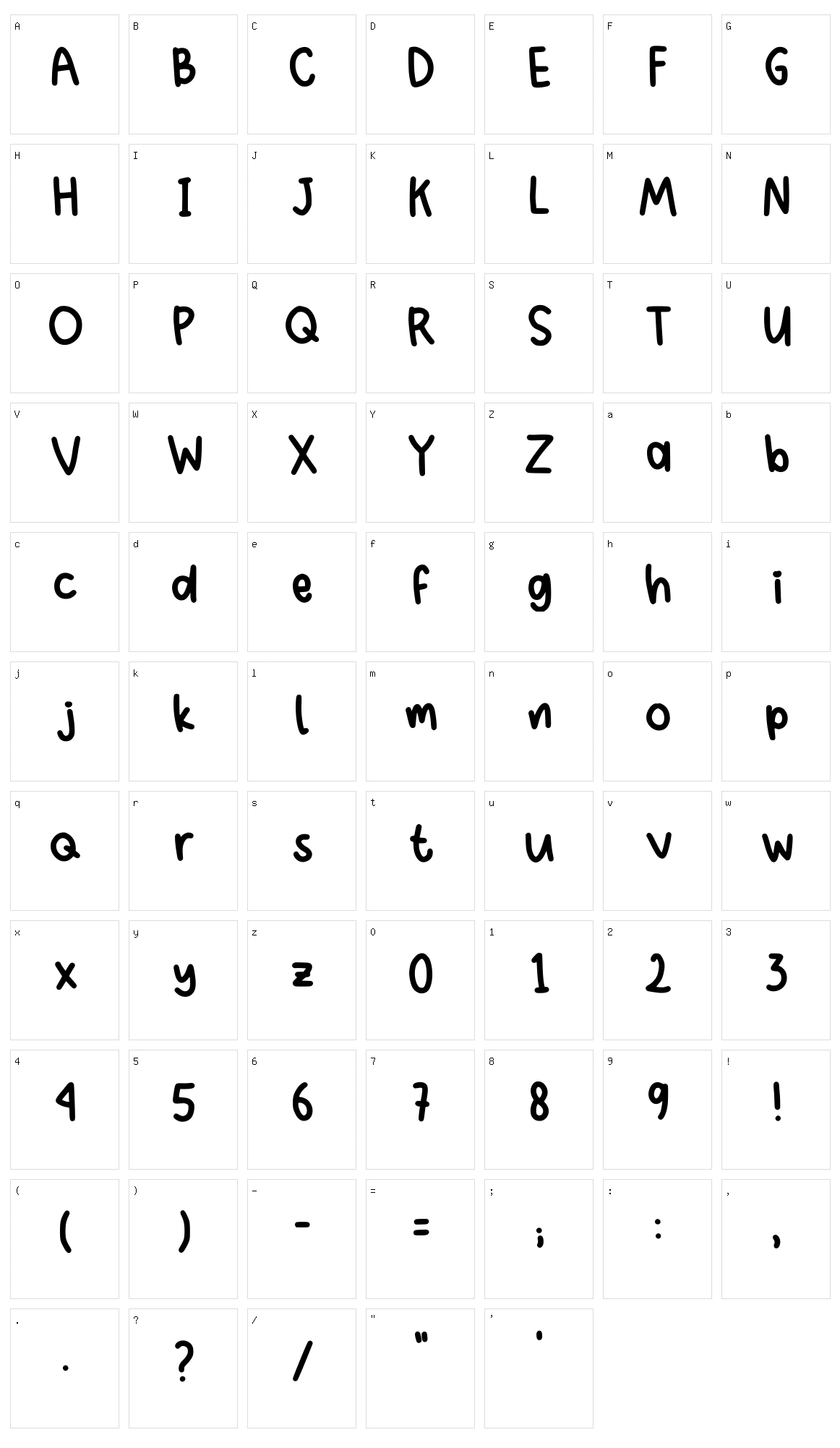
The free font Puzzle Piece is carefully designed by eternanalee, showcasing a thoughtful balance of creativity and usability and falls under the Script font style. When you download the ZIP file, it contains only 9.72 KB of font files, making it lightweight and quick to download. Please review the license details below to understand permitted usage and distribution rights. If license information is not available, we recommend using this font for personal projects only or contacting the author directly for commercial usage permissions.